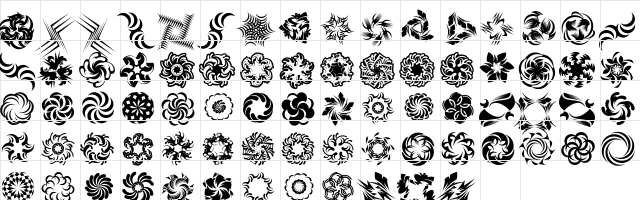
WhirligigBigTwo Roman Free Font
WhirligigBigTwo Roman
Design Context for WhirligigBigTwo
WhirligigBigTwo is a composed and adaptable typeface that performs quietly and consistently across a wide range of design contexts.